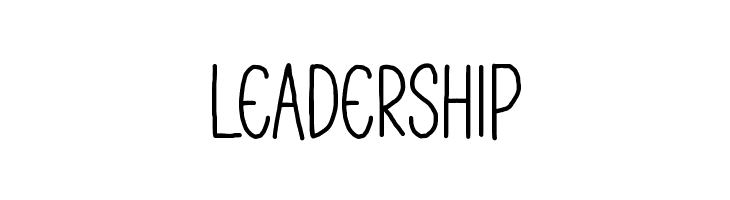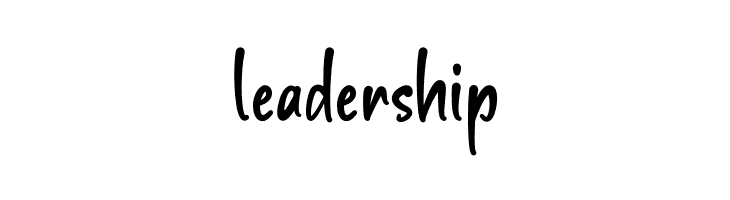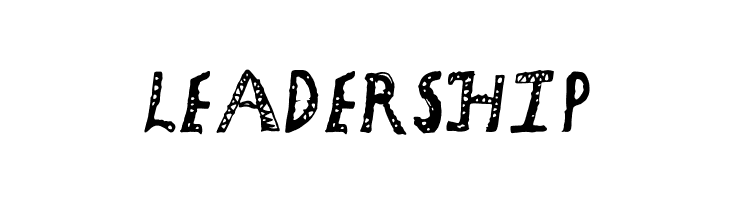
A bold, vintage-inspired font with a playful, retro aesthetic.
A bold, brush script font with dynamic, hand-drawn strokes.
An elegant, flowing cursive font with high contrast and delicate strokes.
A playful, whimsical font with flowing, cursive-like strokes and rounded edges.
An elegant and flowing script font with decorative uppercase and fluid lowercase letters.
Bold, rounded handwritten font with a playful style.
Bold, playful handwritten script font.
A lively, handwritten script font with a dynamic and flowing style.
A playful and whimsical font with curly, flowing letterforms and elegant loops.
A playful, handwritten font with tall, narrow letters and a casual style.
A bold, playful font with rounded, cartoonish characters.
A playful, casual handwritten font with smooth, flowing strokes and rounded edges.
A playful, hand-drawn style font with rounded edges and varying stroke widths.
A bold, playful font with rounded, bubbly characters and a retro-modern style.
A dynamic and fluid script font with elegant, flowing letterforms.
A modern, geometric font with clean lines and consistent stroke width.
A bold, modern font with a playful yet structured design.
A geometric and classic font with clean lines and rounded edges, offering a modern yet traditional look.
A bold, modern serif font with clean lines and subtle curves.
A modern font with a gradient line effect, offering a dynamic and geometric style.
A modern, thin-stroked font with geometric shapes and elegant design.
A playful, whimsical script font with flowing, interconnected letters.
A modern font with a gradient effect, featuring geometric shapes and clean lines.
A clean, elegant font with thin, uniform strokes and a modern, minimalist aesthetic.
A playful, whimsical script font with flowing, interconnected letters.
A bold, distressed font with a vintage, stamp-like texture.
Casual, hand-drawn sans-serif with playful curves.
A playful and bold font with a hand-drawn, whimsical style.
A whimsical, decorative script font with tall, narrow forms and playful swashes.
Playful handwritten script with tall loops and thin strokes.
A playful, hand-drawn font with decorative patterns and a whimsical style.
A playful and dynamic handwritten font with fluid strokes.